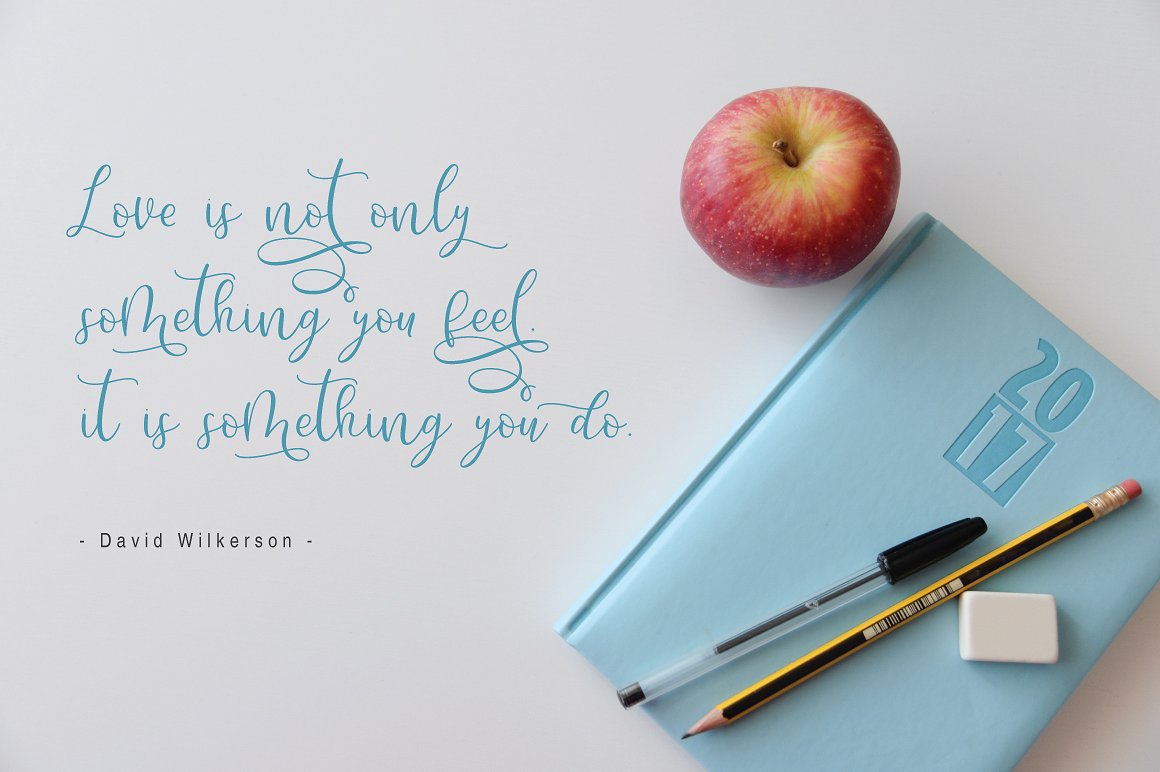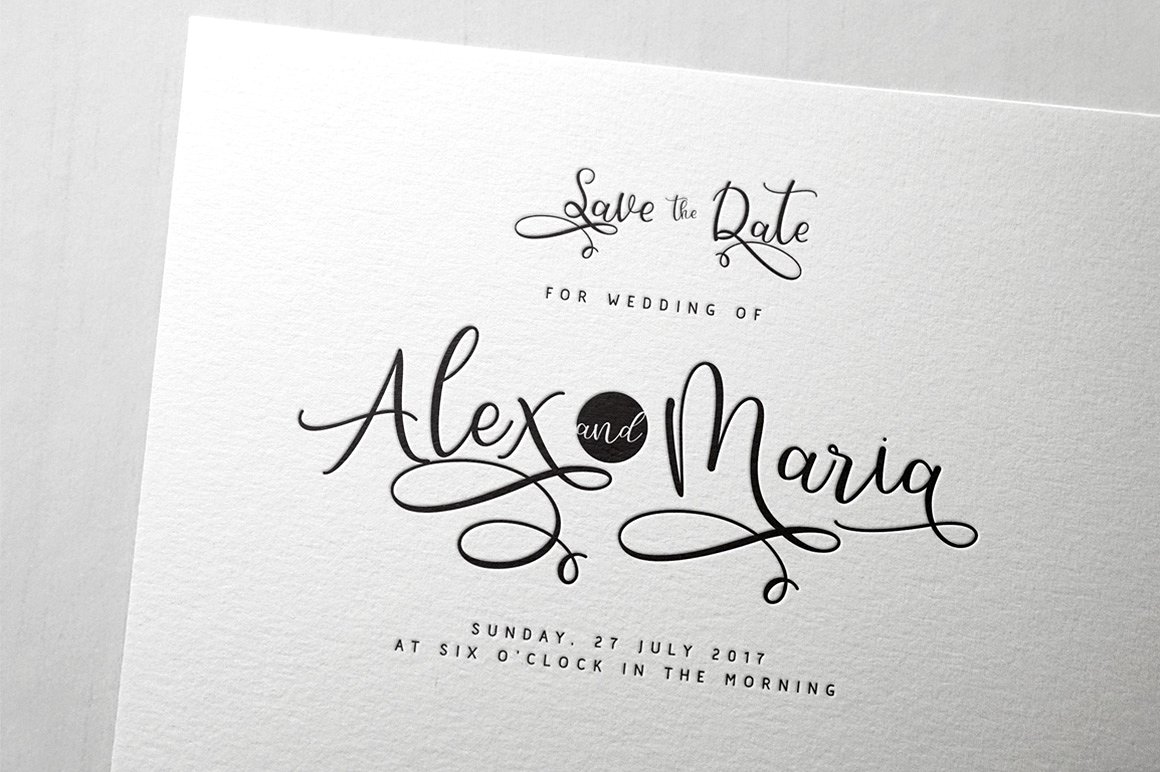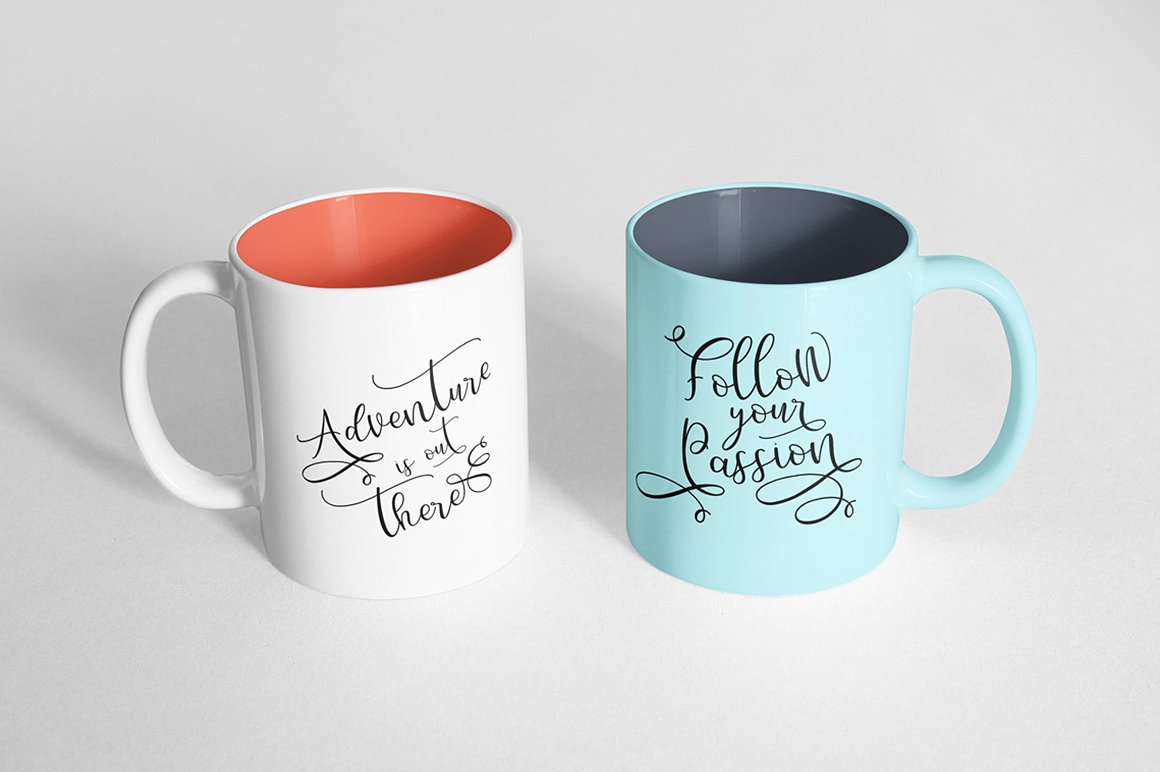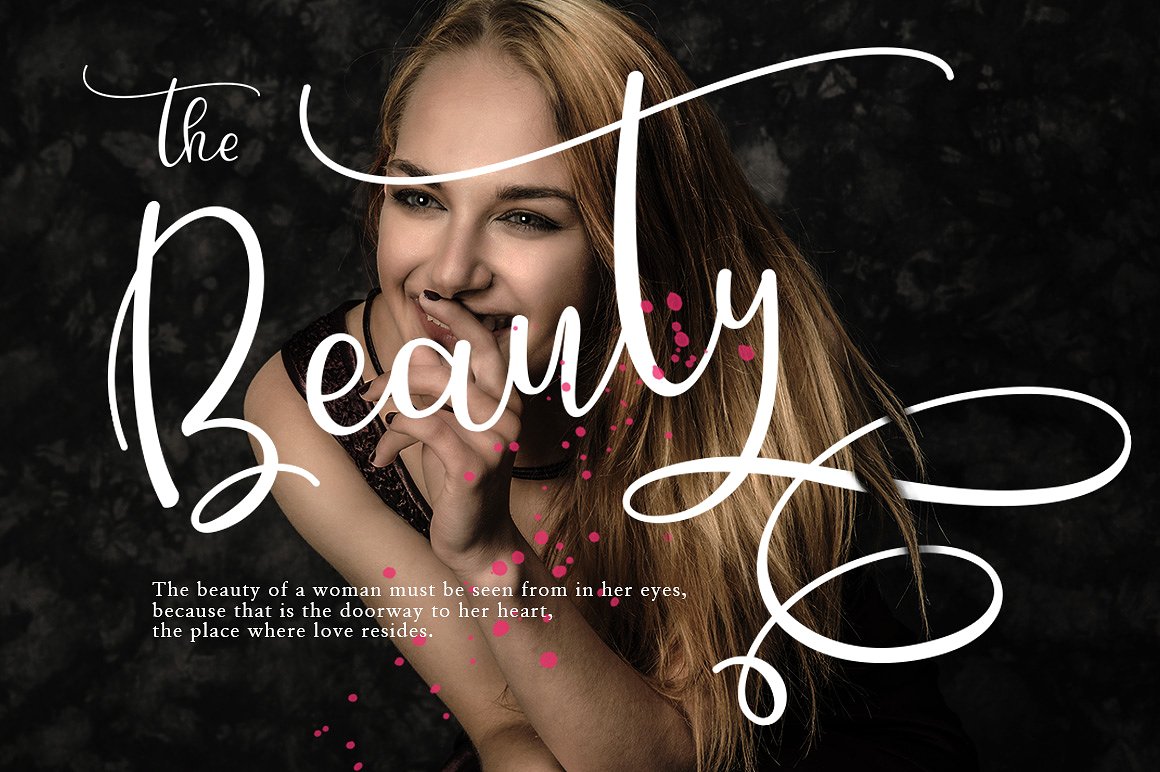
Hello Bunda Script Font
This font can make your design look authentic and handcrafted. Suits best for almost all of your designing project; wedding invitation, t-shirt design, fancy logotype, etc. Introducing Hello Bunda Font. This is Hello Bunda Typeface, simple and easy to create awesome lettering, just type your words and then you will immediately see the great results. Hello Bunda is modern script font, every single letters have been carefully crafted to make your text looks beautiful.